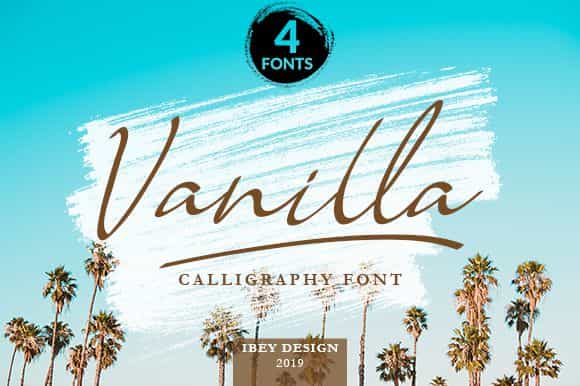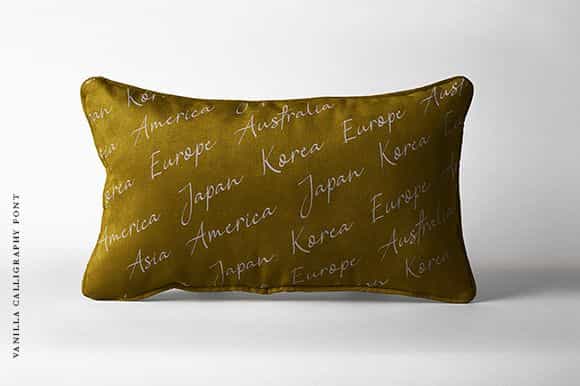
Discover Vanilla Script Font, part of the Calligraphy Handwritten collection—a versatile and unique font perfect for adding a personal touch to your projects. Download it for free and enjoy crafting designs with style, from invitations to social media posts. This font is available exclusively for personal use, giving you the freedom to create without limits. Unlock your creativity with Vanilla Script Font today!
The Vanilla is an amazing, contemporary calligraphy font with a human touch. Vanilla with its four weights and a unique style is just perfect for photography, watermarks, social media posts, advertisements, logos & branding, invitations product design labels stationery wedding designs product packaging special events or anything that requires calligraphy or handwriting taste.